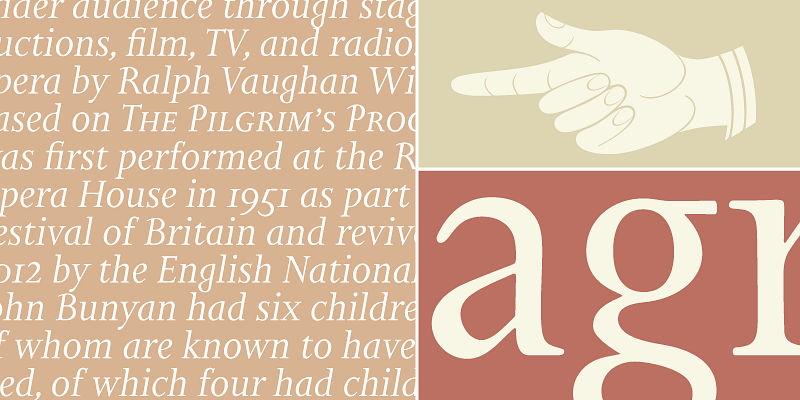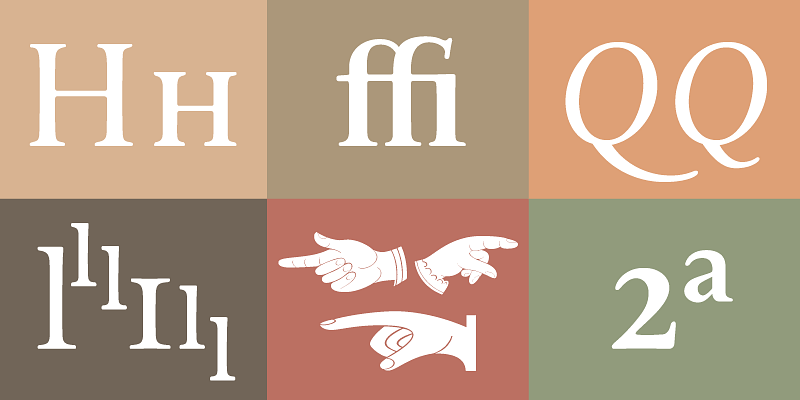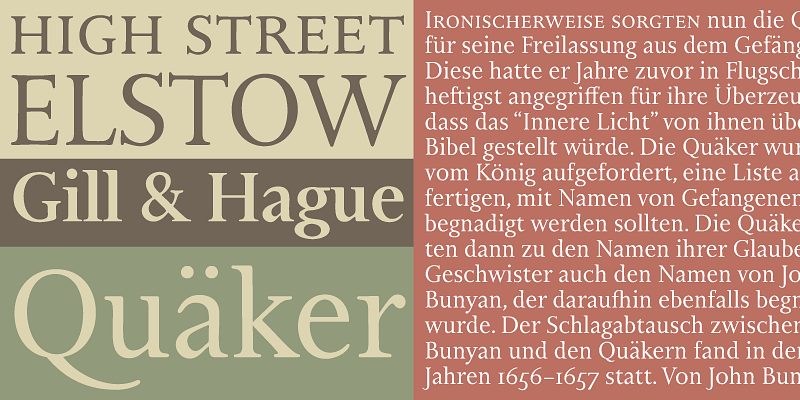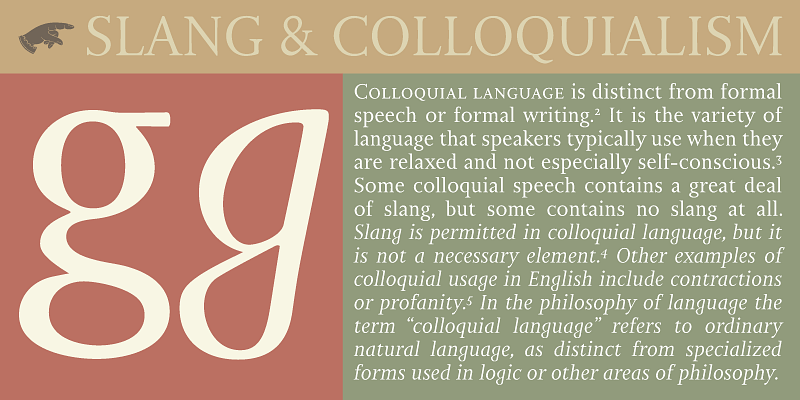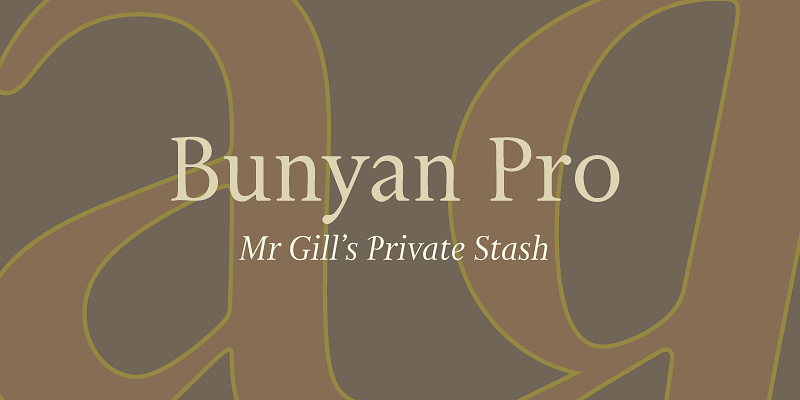
Bunyan Pro is synthesis of Bunyan, the last face Eric Gill designed in 1934 and Pilgrim, the machine face based on it, issued by British Linotype in the early 1950s — the most popular Gill text face in Britain until well into the 1980s.